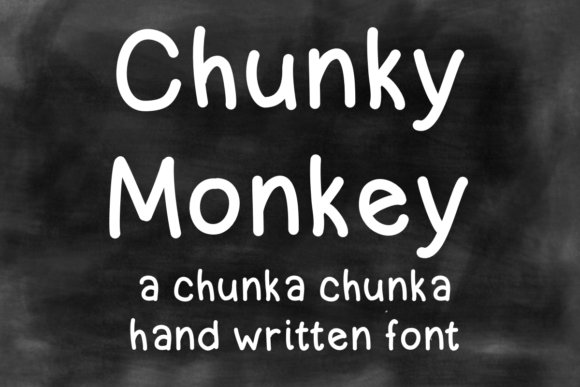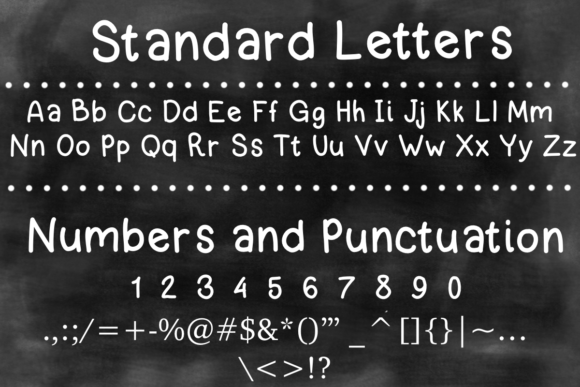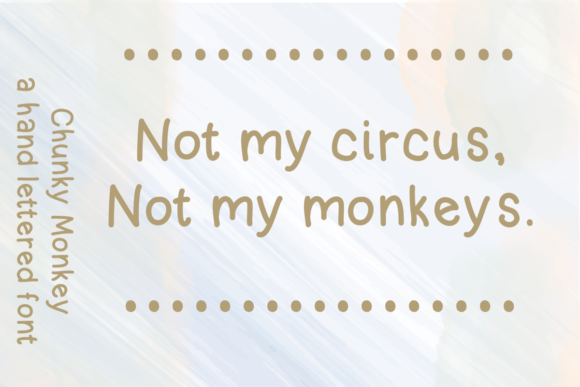
HomeScript FontsChunky Money Font Script Fonts Chunky Money Font FacebookXPinterestWhatsApp Chunky Money Font Poster 2 Chunky Money Font Poster 3 About Chunky Money Font Simple, yet cheerful, Chunky Monkey is a fun and chunky hand lettered font with a funky feel. DOWNLOAD ON CREATIVE FABRICAThis font is sold and delivered by Creative Fabrica. Font Canyon may earn a commission if you buy through this link. People also explored Chella Font Githa Font Frenchasette Font Spring Sunflower Font Signals CPC Font Skywife Summer Holiday Font Paulina Beisley Font Happy Summer Font 275 0 TagsChunky Money Font Previous articleLanky Dave FontNext articlePickle Font LEAVE A REPLY Cancel reply Comment: Please enter your comment! Name:* Please enter your name here Email:* You have entered an incorrect email address! Please enter your email address here Website: Save my name, email, and website in this browser for the next time I comment. Personal Use Free Messy Personal Use Free Read more about this font BD Lofi Personal Use Free Read more about this font Squealer Personal Use Free Read more about this font No Virus Personal Use Free Read more about this font BLOG How to Install and Use Fonts on Windows, macOS, and Web Projects How to Install and Use Fonts on Windows, macOS, and Web Projects Fonts are a crucial part of design and branding. Whether you’re designing a... Top 7 Google Fonts Alternatives for Faster and Privacy-Friendly Web Design (2025) Modern Sans-Serif Fonts That Brands Love in 2025 Best Fonts for T-Shirt Design – Top 2025 Picks